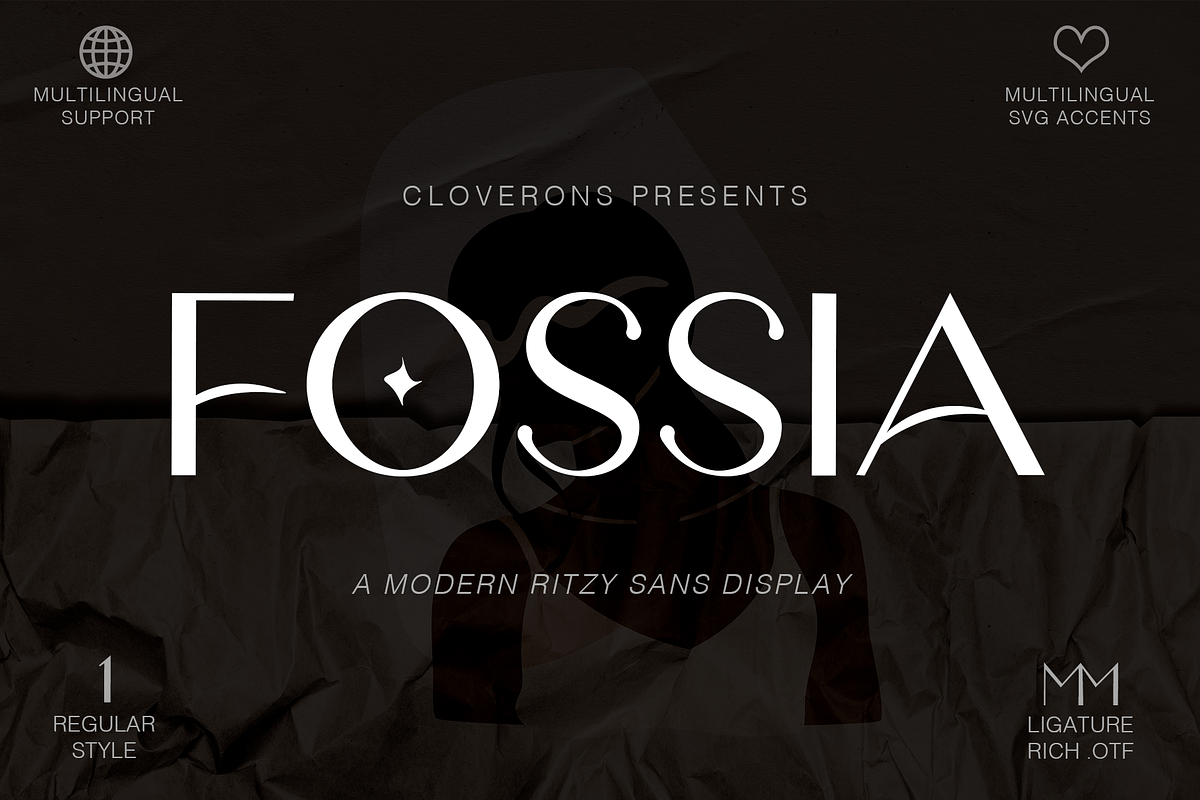
The Fossia - Chic Modern Sans Display Font Free Download is a sleek and stylish typeface that brings a sophisticated modern flair to your designs. With its clean lines and contemporary sans-serif style, this font is perfect for creating eye-catching logos, branding, website designs, and print materials. Whether you're working on luxury branding, editorial layouts, or creative projects, Fossia adds a chic, polished touch to your work.
Fossia - Chic Modern Sans Display Font Free Download is ideal for designers who want a versatile and high-quality font with a sleek and modern style. Perfect for a wide range of design needs, this font will elevate your projects with its sophisticated appearance. Download it today and enhance your creative work with Fossia’s modern, chic design!